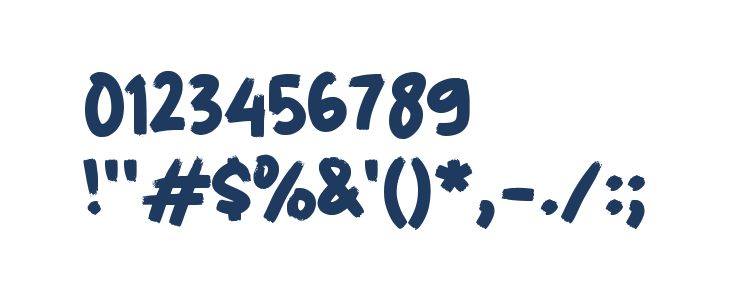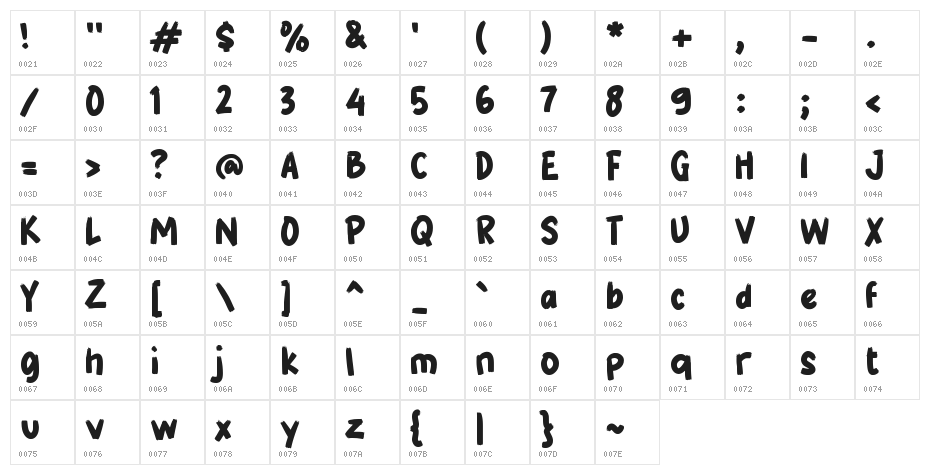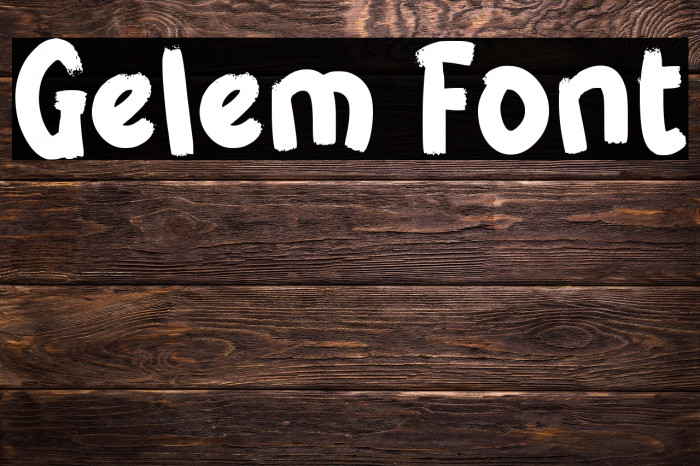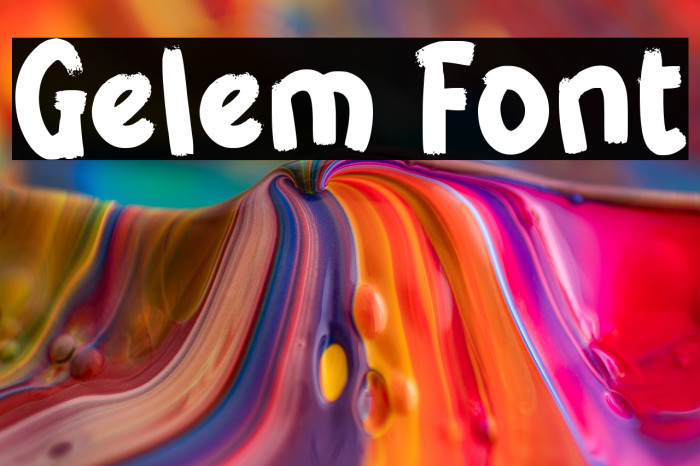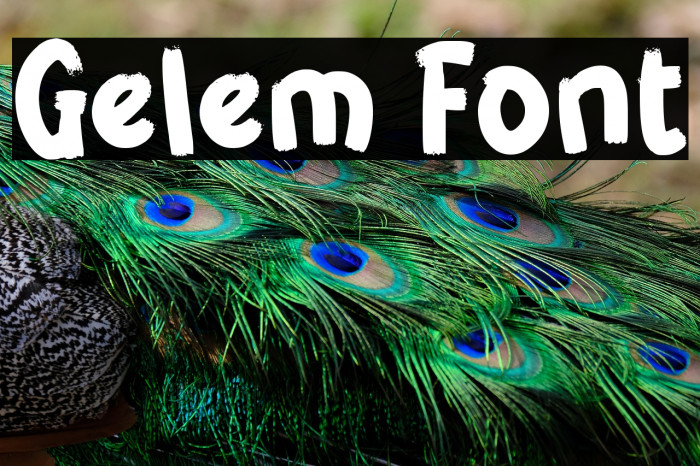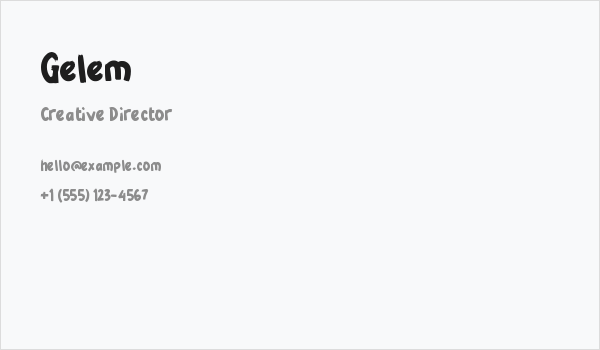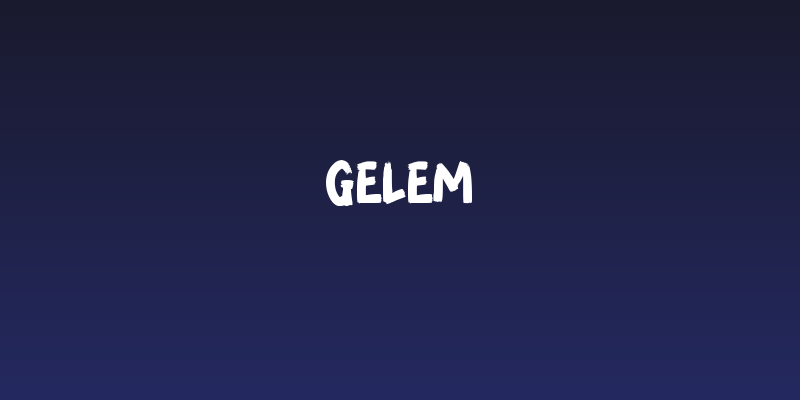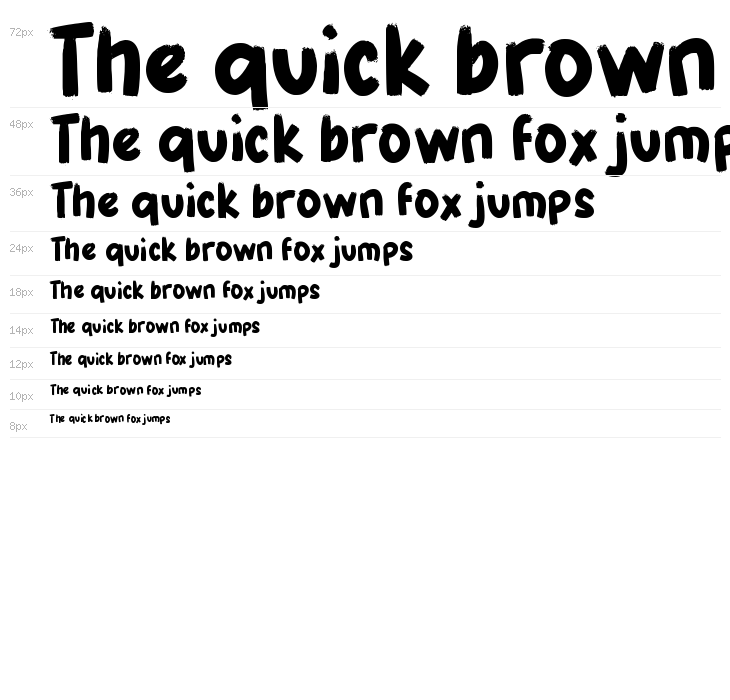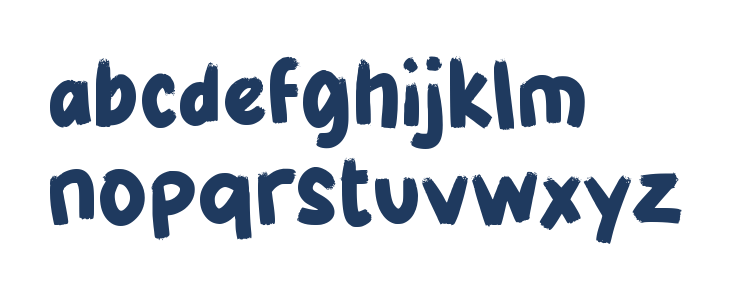
Gelem Font
Gelem Description
This font features a bold, hand-drawn style with a playful and energetic appearance. The characters are thick and slightly irregular, giving them a casual, informal feel. The strokes are consistent in width, with rounded edges that soften the overall look. This font is highly legible, with clear distinctions between each character, making it suitable for various design projects. The uppercase and lowercase letters maintain a cohesive style, while the numerals and special characters complement the alphabet with the same bold and dynamic aesthetic.
| Proposed Projects | Ideal for children's books, posters, branding, and social media graphics. |